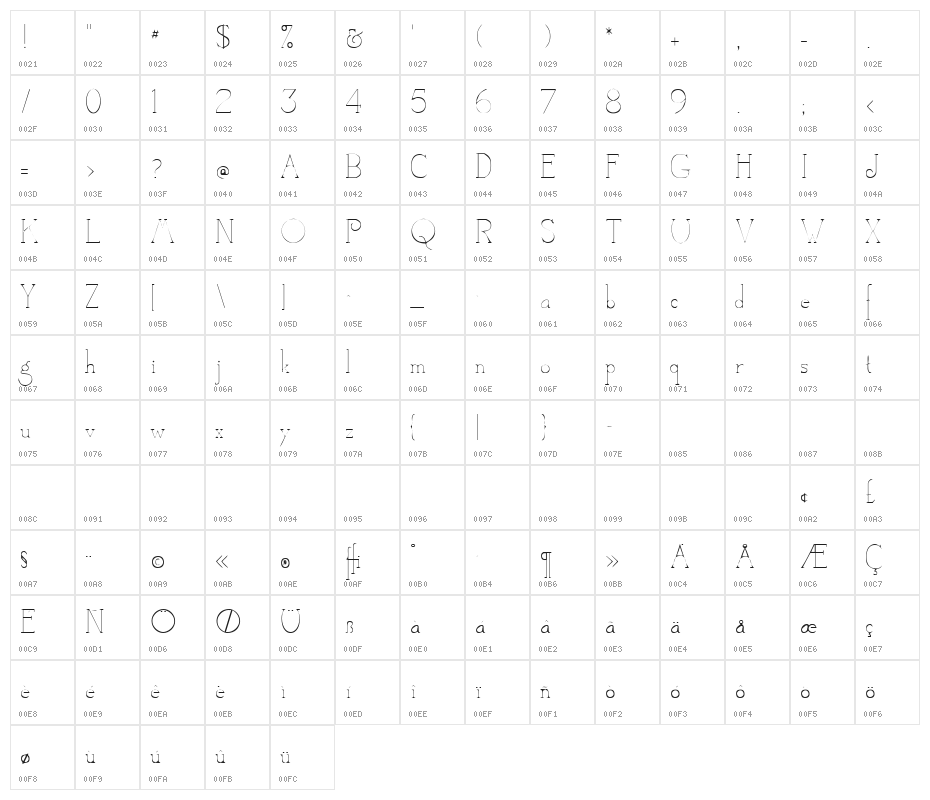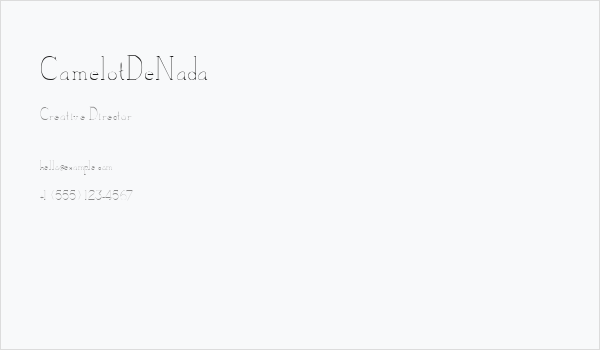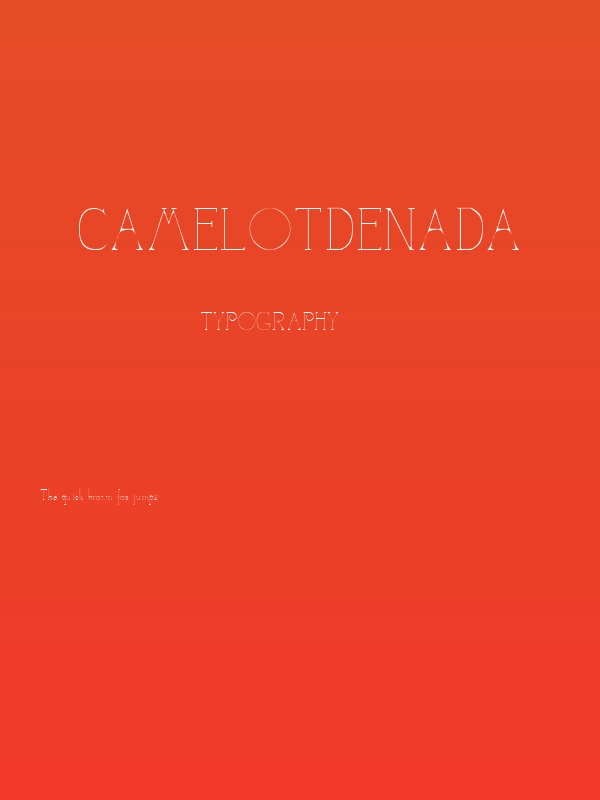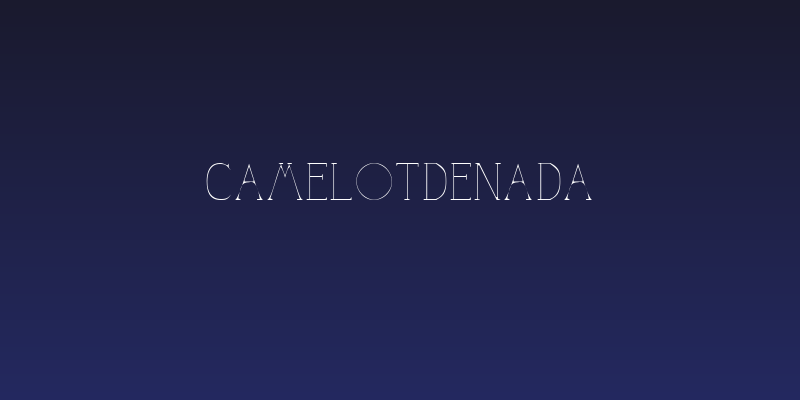
CamelotDeNada Font
CamelotDeNada Description
This font features a unique and elegant design with a modern twist. The uppercase letters are tall and slender, with distinctively sharp angles and subtle curves that give them a sophisticated appearance. The lowercase letters maintain a similar style, with a slightly more playful and whimsical touch, particularly noticeable in the ascenders and descenders. The numerals are consistent with the overall design, offering a clean and stylish look. Special characters are thoughtfully crafted, maintaining the font's cohesive aesthetic. This font's thin strokes and minimalistic approach make it ideal for projects that require a touch of elegance and modernity.
Use CaseLogos, Invitations, Editorial Design
Proposed ProjectsIdeal for wedding invitations, luxury branding, high-end product packaging, and editorial design.